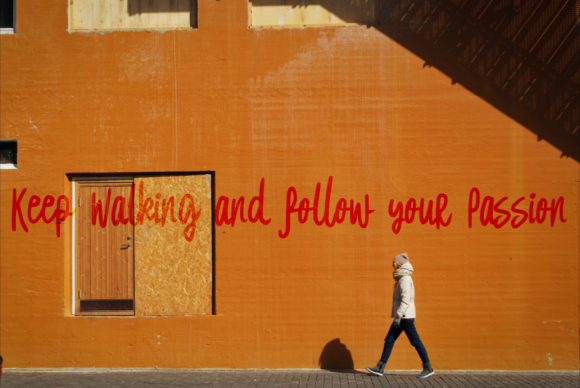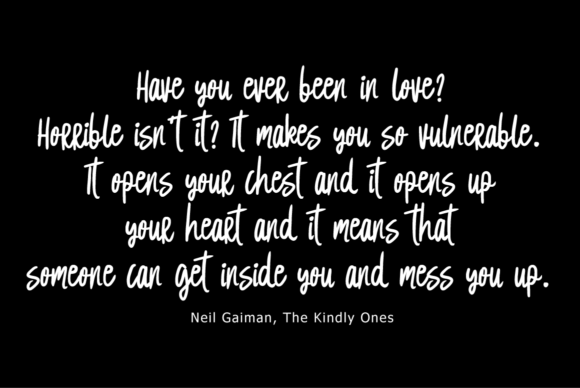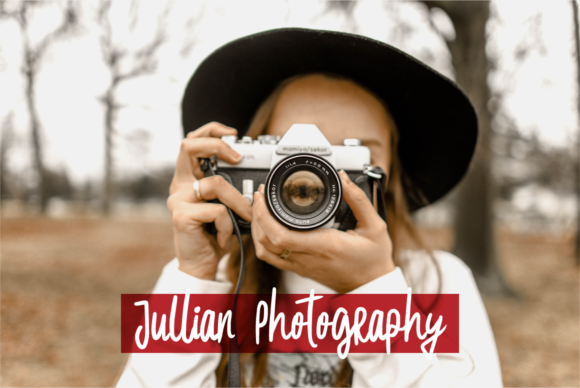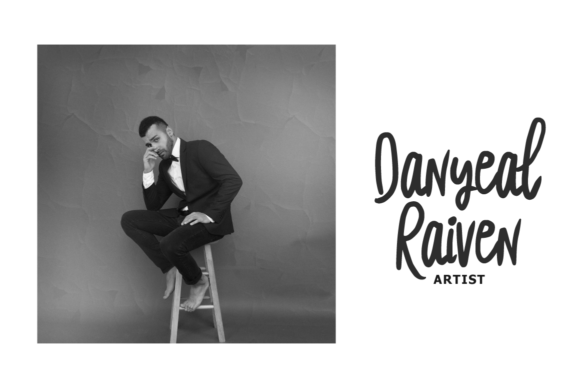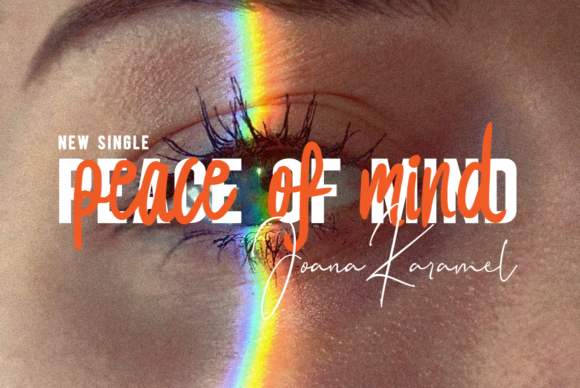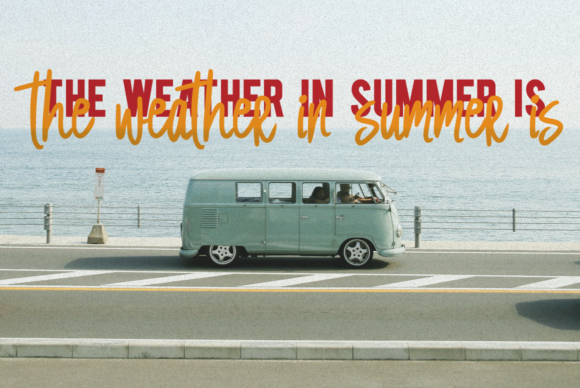
Karlostine Font — Free Download Now
Introduction to Karlostine Font
Have you ever stumbled upon a design that left you speechless, making you wonder how the designer achieved such a unique and captivating look? For many creatives, this moment of inspiration is what drives us to push the boundaries of our craft. For me, it was a beautifully crafted wedding invitation that featured the Karlostine Font, which set off a chain of thought about the power of typography in design.
The Karlostine Font is more than just a pretty face; it’s a valuable design resource for creatives looking to add a touch of elegance and sophistication to their projects. With its flowing, handwritten style, this font is perfect for a variety of designs, from wedding invitations and thank you cards to logos and greeting cards.
Whether you’re working on a high-quality creative project or just need a reliable design element, the Karlostine Font is a great choice. And the best part? It’s available for free download, making it an accessible and transparent background for your next design adventure.
Key Features of Karlostine Font
• Unique, handwritten design with a touch of elegance, ideal for creative projects that require a personal touch.
• Transparent background, making it easy to layer over images or other design elements in creative projects.
• Comes in 6 styles, including regular, bold, italic, and bold italic, providing versatility for various design applications.
• Designed as a design resource for artists, graphic designers, and writers, perfect for creative projects that demand a distinctive, handwritten look.
• Size: 1,500 characters, including uppercase and lowercase letters, numbers, and punctuation marks, making it a comprehensive font solution.
Honest Review: Karlostine Font
I recently came across the Karlostine Font, and I must say, it’s been a great addition to my design resources. The high quality of this font is evident in its smooth lines and elegant typography, making it perfect for creative projects.
• ✨ Smooth and elegant typography, great for creating a sophisticated look
• ✨ Versatile and suitable for various design styles, from modern to classic
• ✨ The transparent background allows for easy integration with other design elements
• ⚠️ The font may not be suitable for very small text sizes, as it can become difficult to read
• ⚠️ Some users may find the font too minimalist, lacking in personality
Overall, I’m really impressed with the Karlostine Font. Its high quality, versatility, and free availability make it a valuable addition to any designer’s toolkit. While it may not be perfect for every project, it’s definitely a great choice for those looking for a sophisticated and elegant font.